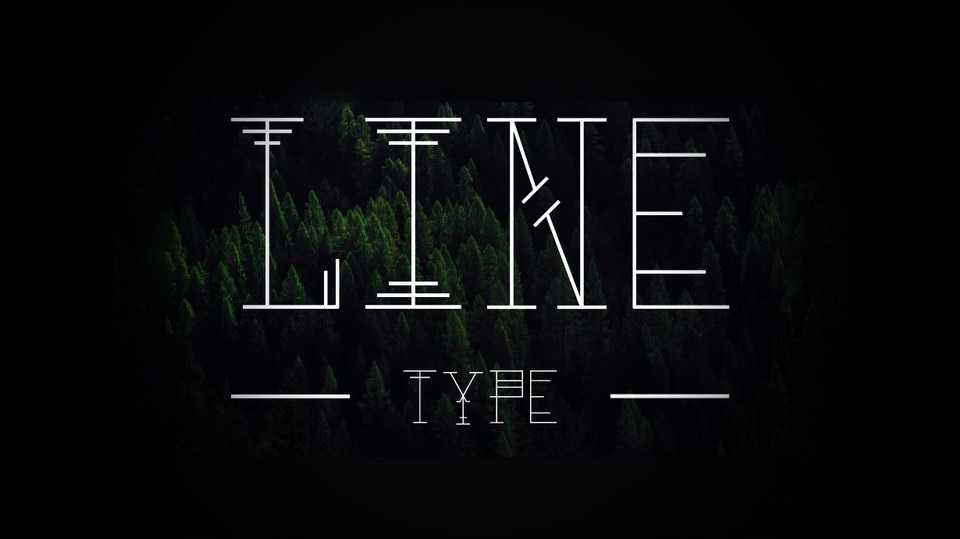
Download Line type font, a decorative multiline typeface with a unique style. Line Type font is perfect for logos, posters, prints, design elements, headlines and other artworks.
Designer: Francisco Ramirez